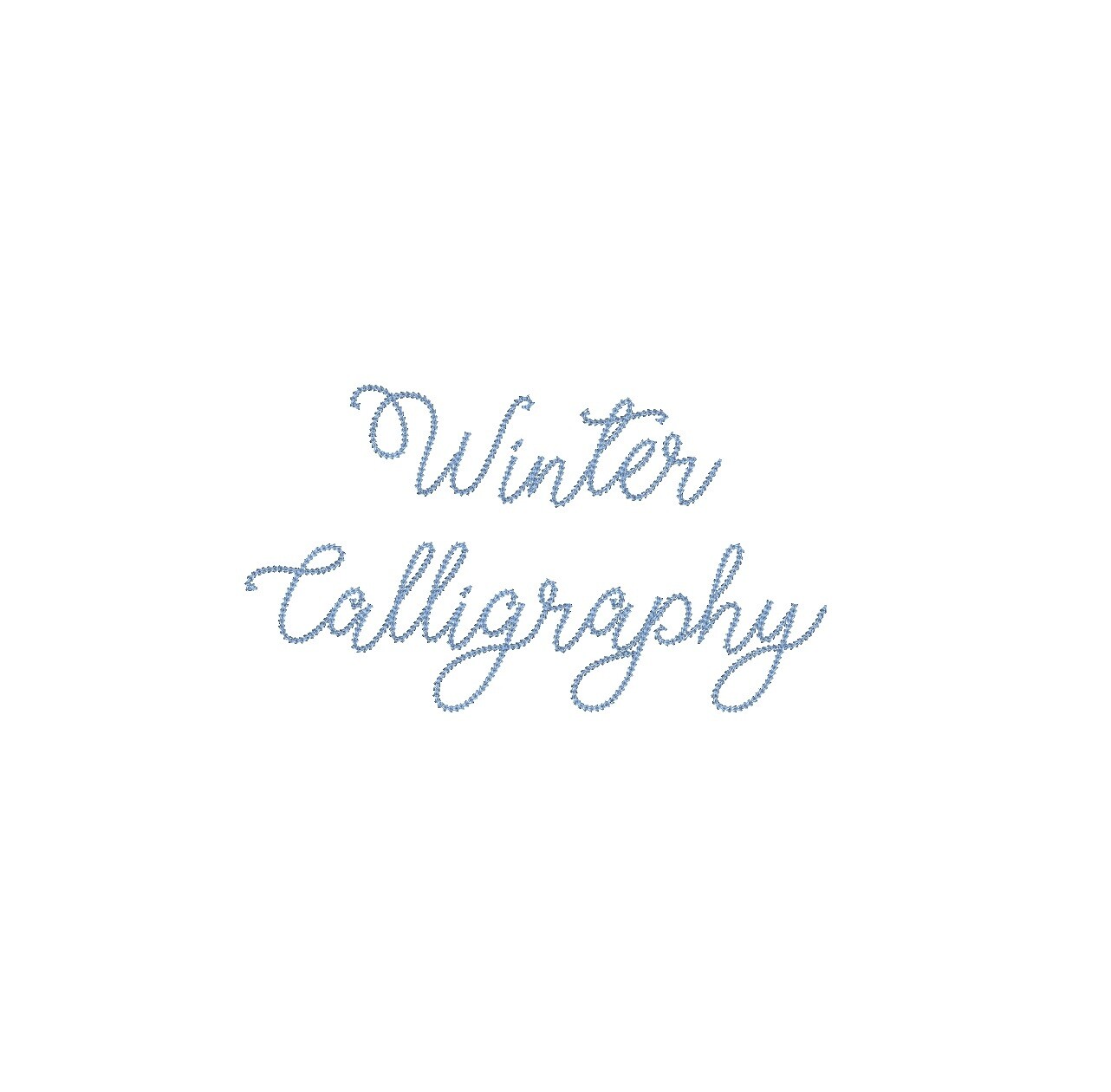
Elevate your embroidery projects with the exquisite Winter Calligraphy Chain Stitch ESA font. Designed for seamless compatibility with Wilcom Studio e4.5.6 and Hatch 3 versions and up, this font adds a touch of elegance and grace to your designs. Craft captivating monograms, labels, and embellishments effortlessly. Seamlessly integrate the font to unlock a world of creative possibilities. Download Winter Calligraphy Chain Stitch ESA font now to infuse your embroidery with timeless charm. Elevate your projects with this exceptional font, transforming each piece into a work of artistry. Add a touch of sophistication to your creations with this versatile addition to your toolkit.